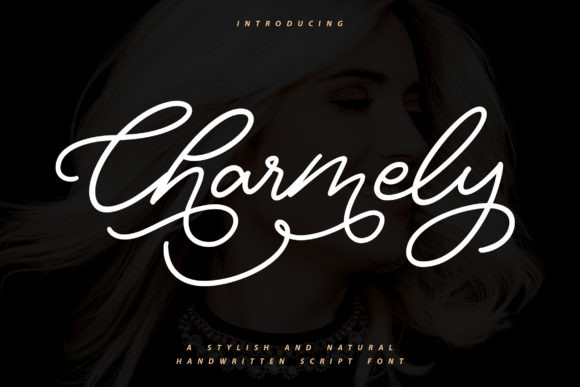
Charmely Font
Charmely FontCharmely is an exquisite handwritten font, masterfully designed to become a true favorite. Fall in love with it and bring your projects to the highest levels!